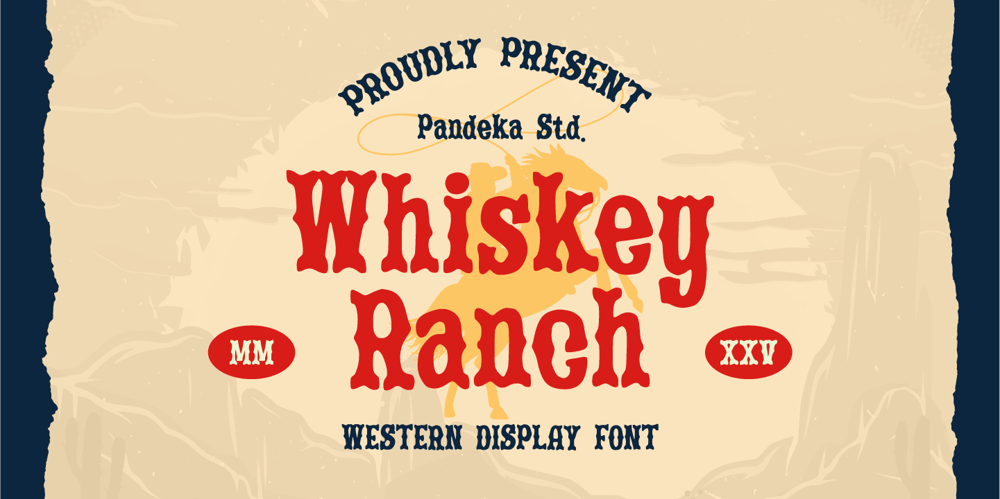
Whiskey Ranch
Whiskey Ranch font
Whiskey Ranch Font Family was designed by Sagara Nararya and published by Pandeka Studio. Whiskey Ranch contains 1 styles and family package options. Whiskey Ranch – Western Display SerifWhiskey Ranch is a bold serif font with a rustic, vintage aesthetic, perfect for western-style branding, cowboy-themed designs, signage, packaging, and classic typography. Its timeless, rugged charm makes it ideal for bold lettering, rustic posters, and unique display projects.What’s Included: Main Files formats 1 Style: Regular Full Character Set: Uppercase, lowercase, numbers, symbols, and punctuation Easy to Use: Works on both PC & Mac Compatible with Adobe Illustrator, Photoshop, Microsoft Word, Canva, and more PUA Encoded: Fully accessible without additional software Western Display Font Bold Typography Vintage Aesthetic Rustic Lettering Cowboy Style Classic Design Unique TypefaceThank you and happy designing!Pandeka Studio